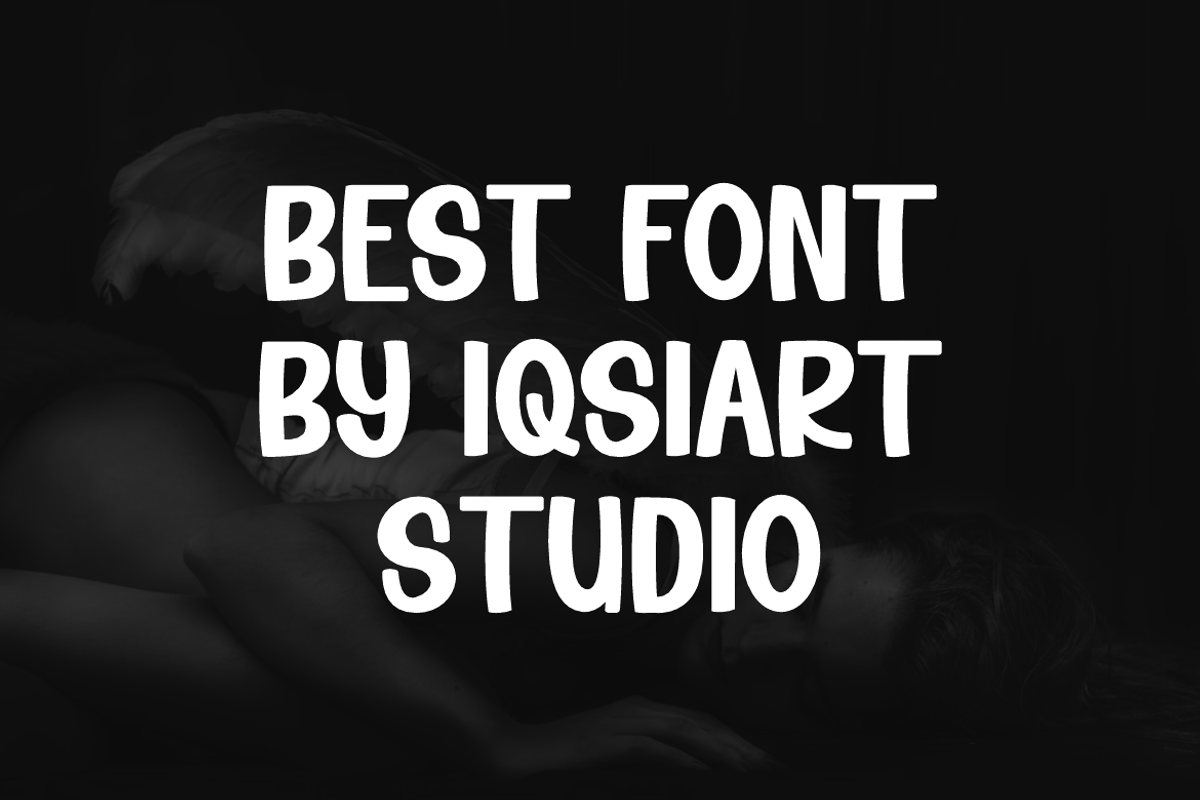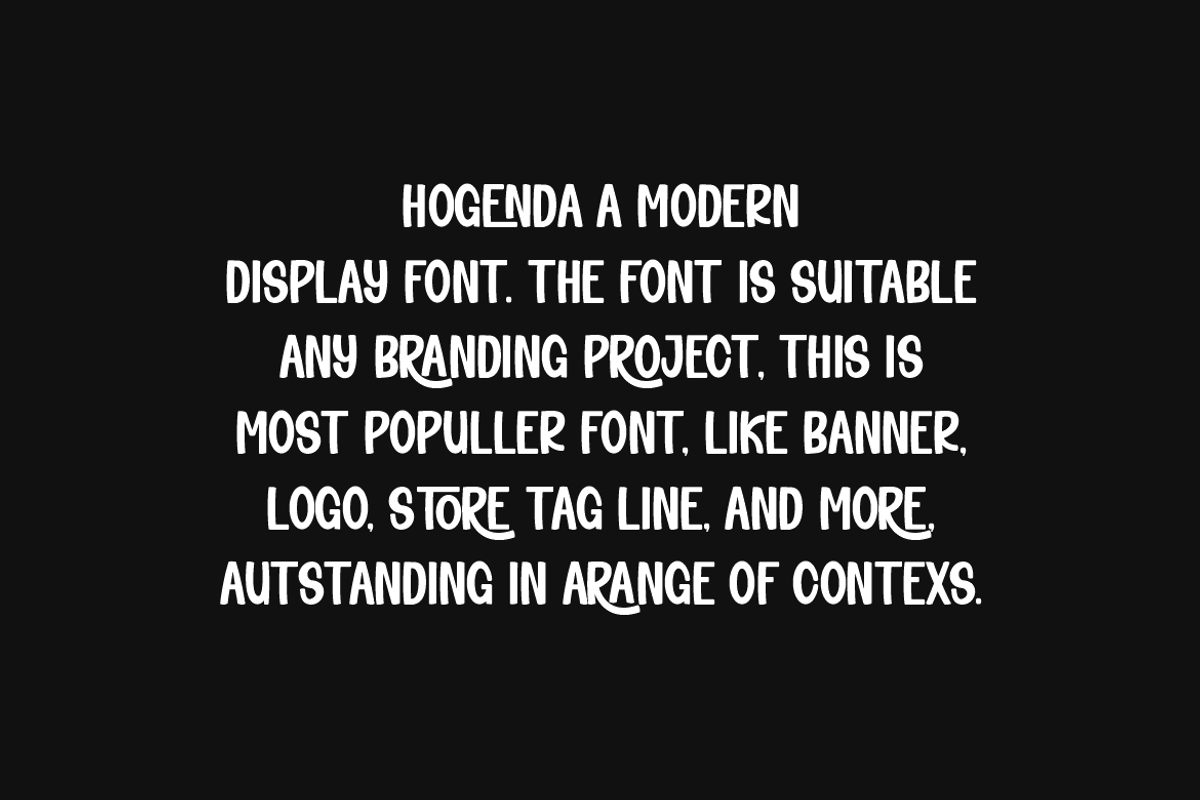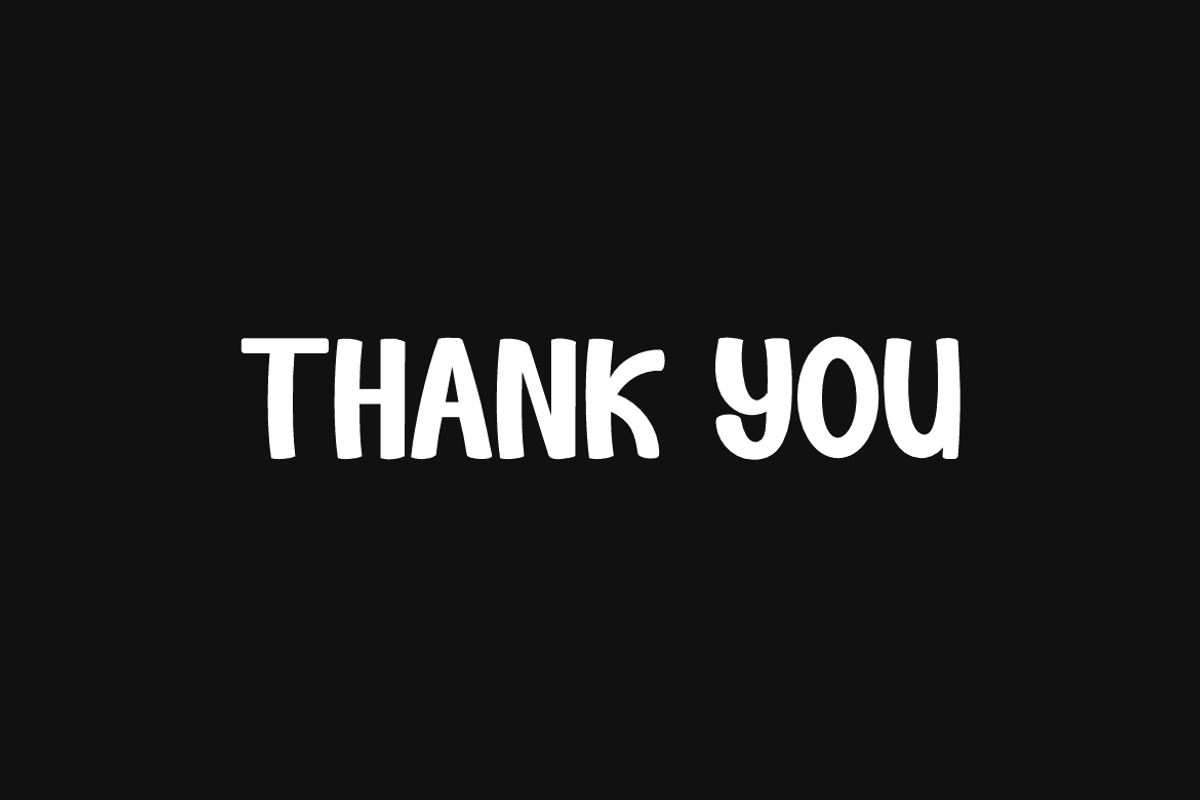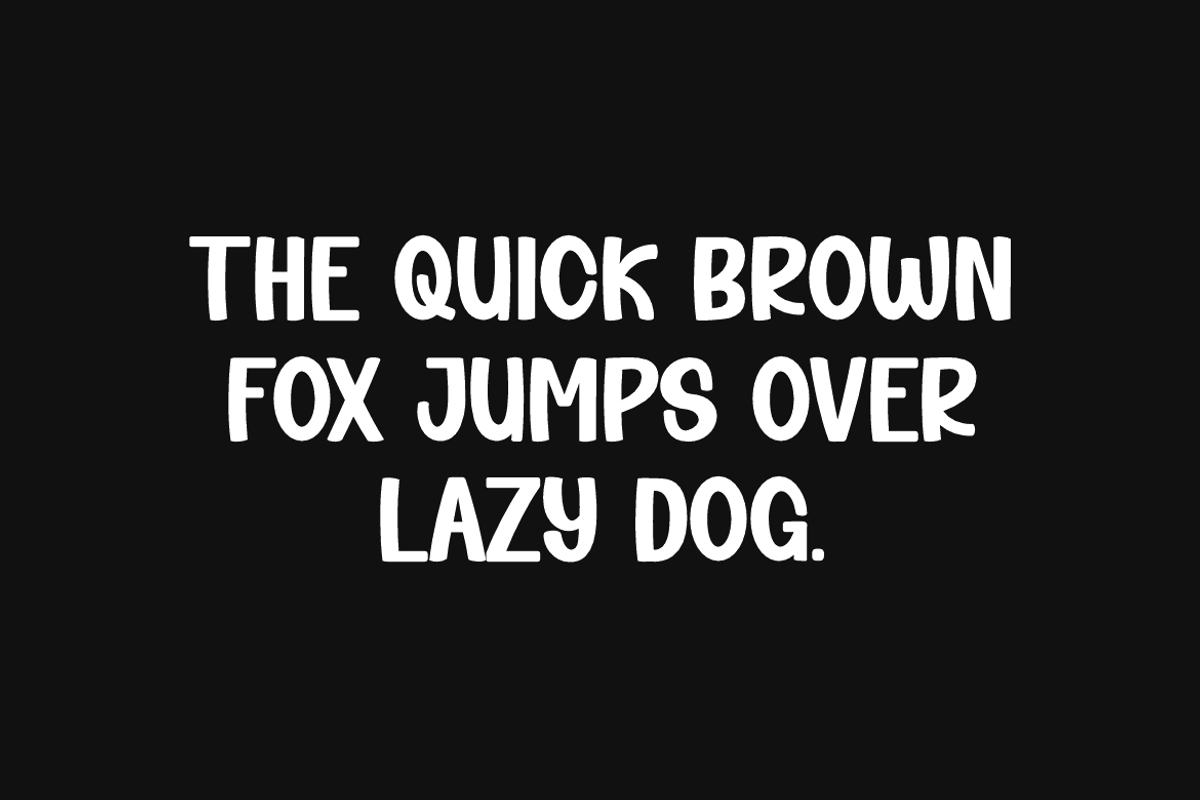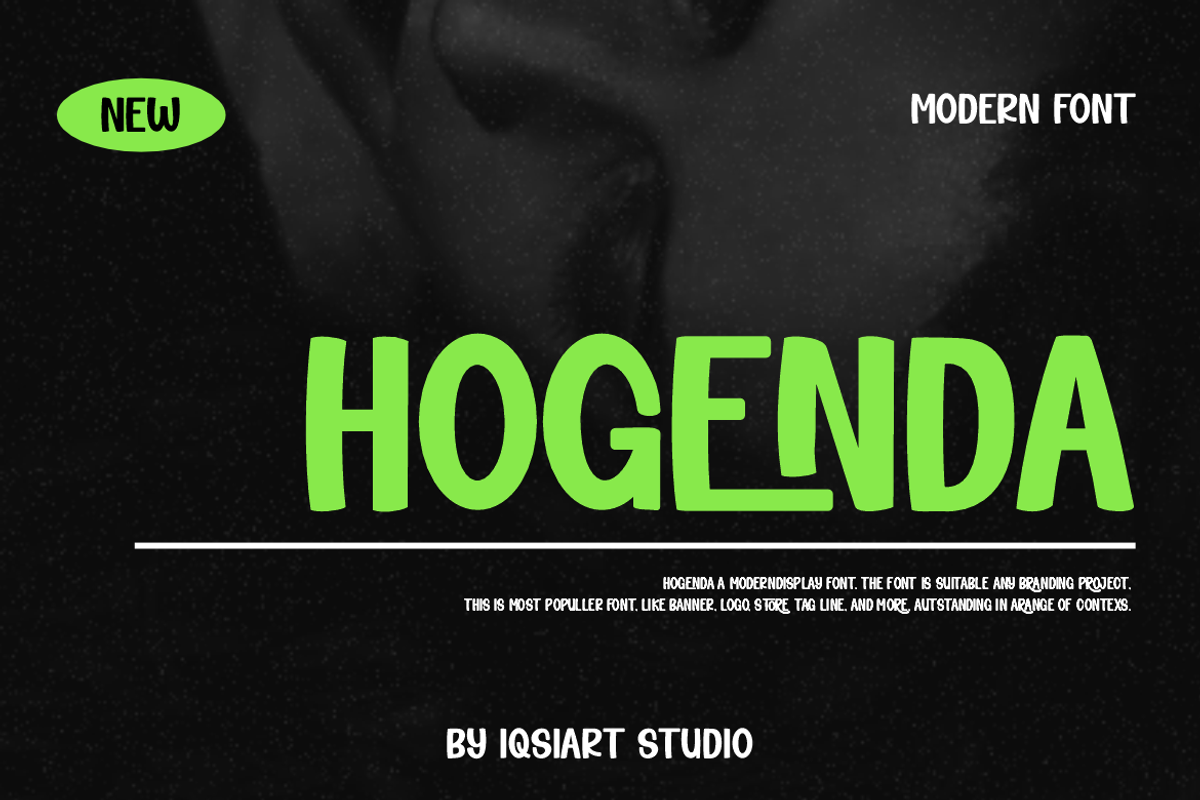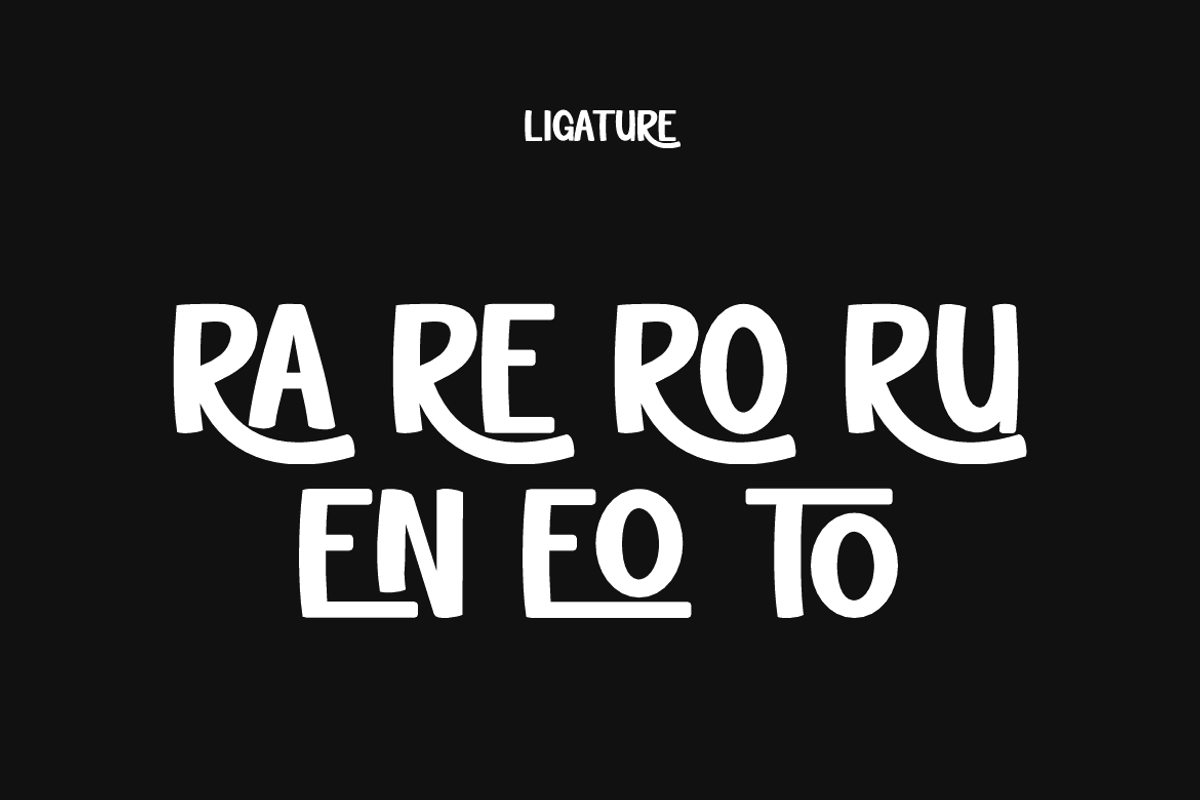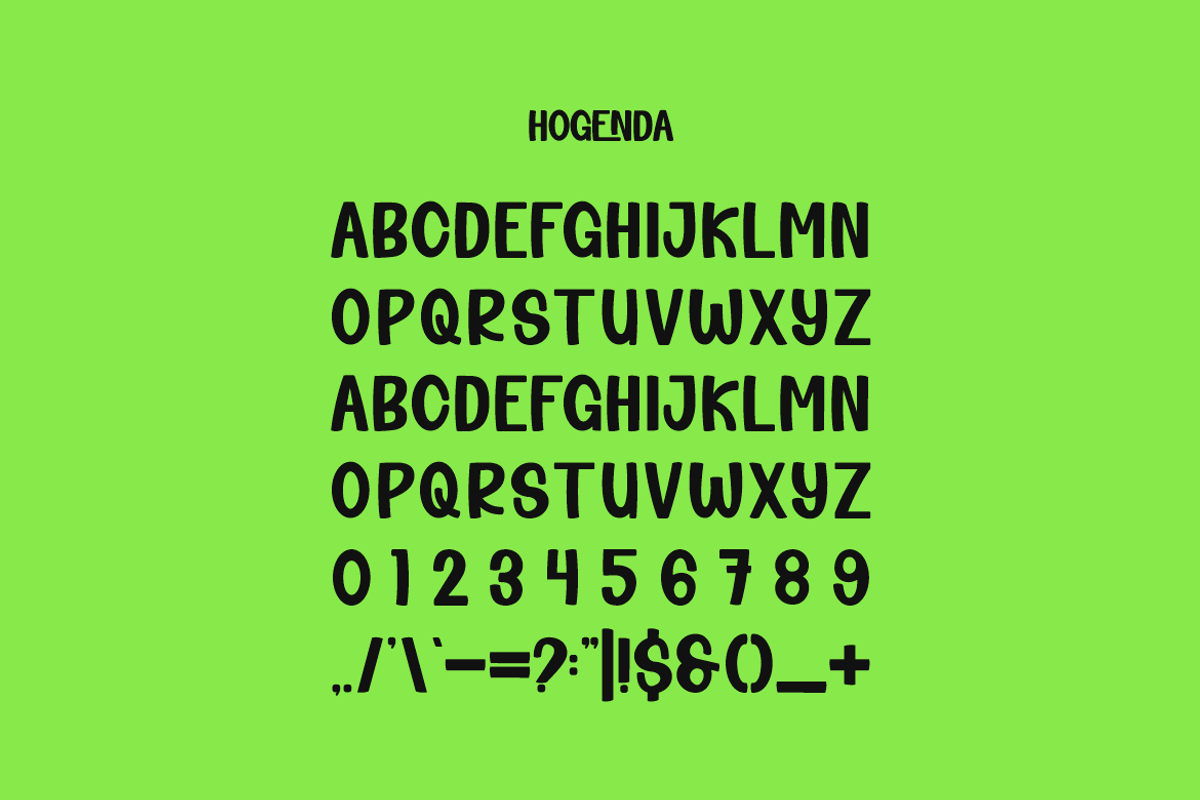
Hogenda - Block Font
Hogenda Font is a best and authentic display font. This font can be used for your various needs. We provide various themes and font styles. visit our profile to get a wide variety of themes and different font styles you need.